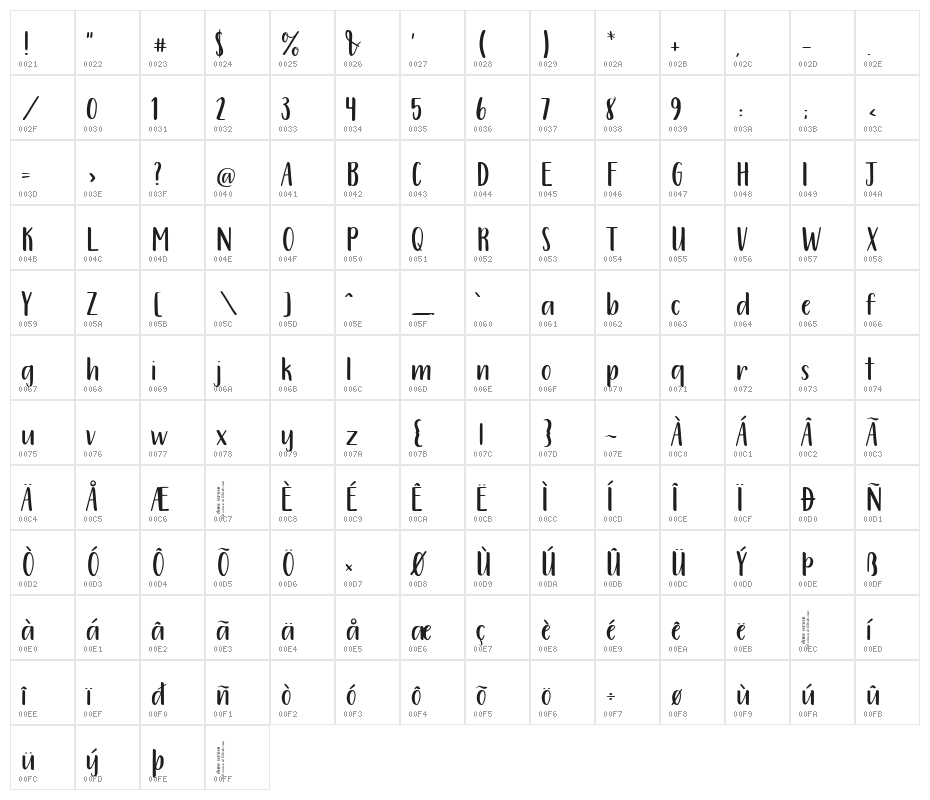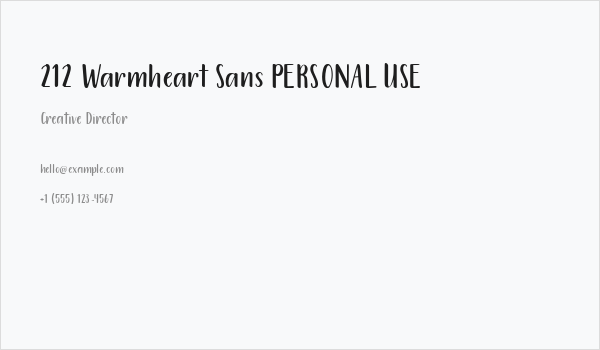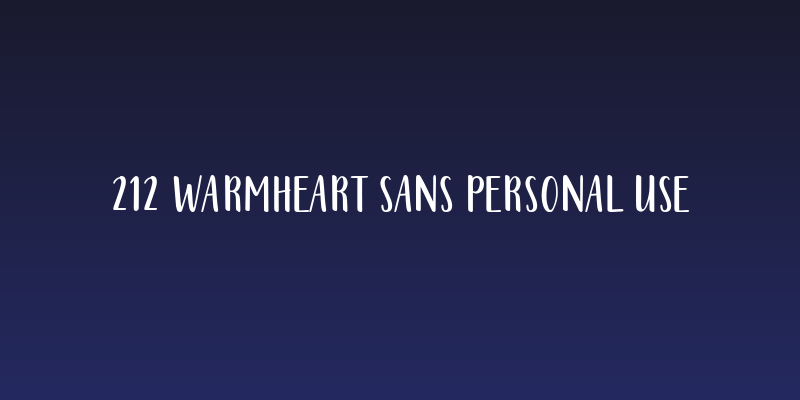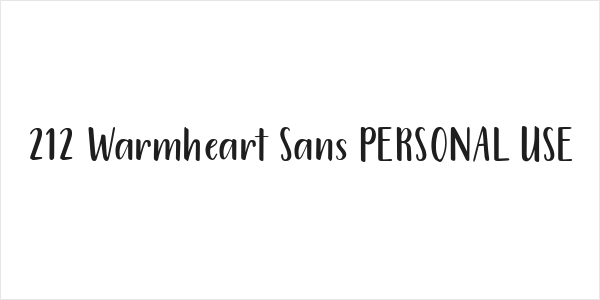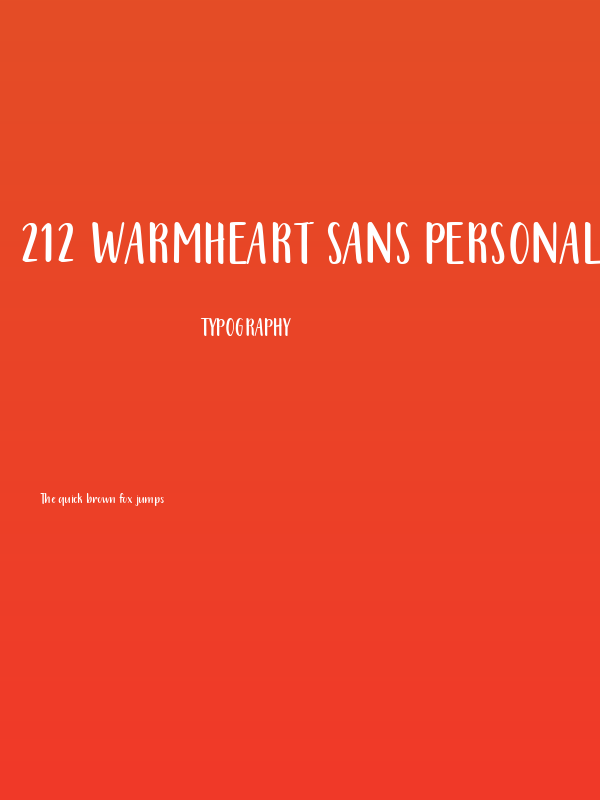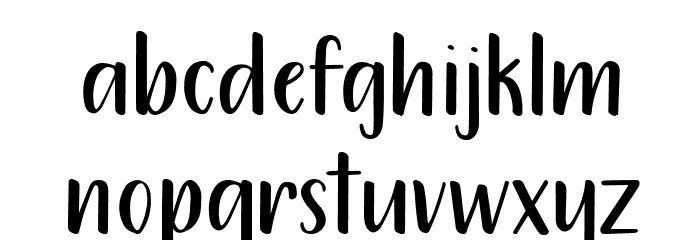
212 Warmheart Sans PERSONAL USE Font
212 Warmheart Sans PERSONAL USE Description
This font features a playful and friendly design, characterized by its handwritten style with smooth curves and a casual appearance. The letters are slightly condensed, giving it a modern and approachable feel. The uppercase letters are bold and prominent, while the lowercase letters maintain a consistent flow with rounded edges. The numerals and special characters are designed to match the overall aesthetic, making it versatile for various uses. The font's informal style makes it ideal for projects that require a personal touch, such as invitations, greeting cards, and creative branding.
| Use Case | Headlines, Logos, Invitations |
| Proposed Projects | Ideal for invitations, greeting cards, creative branding, and personal projects. |